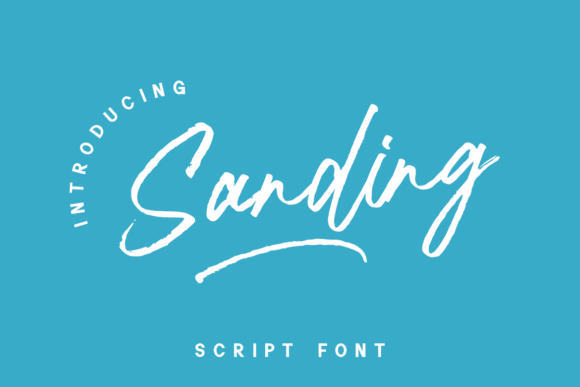
Embark on a typographic odyssey with Sanding Font, a script font that exudes individuality and charm. Its organic strokes and fluid curves will add a touch of effortless elegance to your creative projects, making them stand out from the mundane.
Indulge your senses in the beauty of Sanding Font, meticulously crafted to capture the essence of authentic typography. Whether you're designing wedding invitations, heartfelt thank-you notes, or eye-catching logos, Sanding Font is your perfect companion. Its versatility knows no bounds, extending to branding projects, watermarks, and more.
Immerse yourself in the world of Latin script, where Sanding Font truly shines. Its graceful lines and elegant swashes seamlessly intertwine, creating a visual symphony that captivates the eye. Experience the joy of effortless creativity as you watch your words transform into stunning works of art.
With Sanding Font, you'll unlock a treasure trove of possibilities. Unleash your imagination and let your creativity soar as you explore the endless design horizons that await you. The possibilities are limitless, bound only by the depths of your own artistic vision.
Don't settle for ordinary fonts that blend into the background. Embrace the extraordinary with Sanding Font and embark on a journey of typographic exploration. Let your designs speak volumes, captivating your audience with a font that truly stands out.